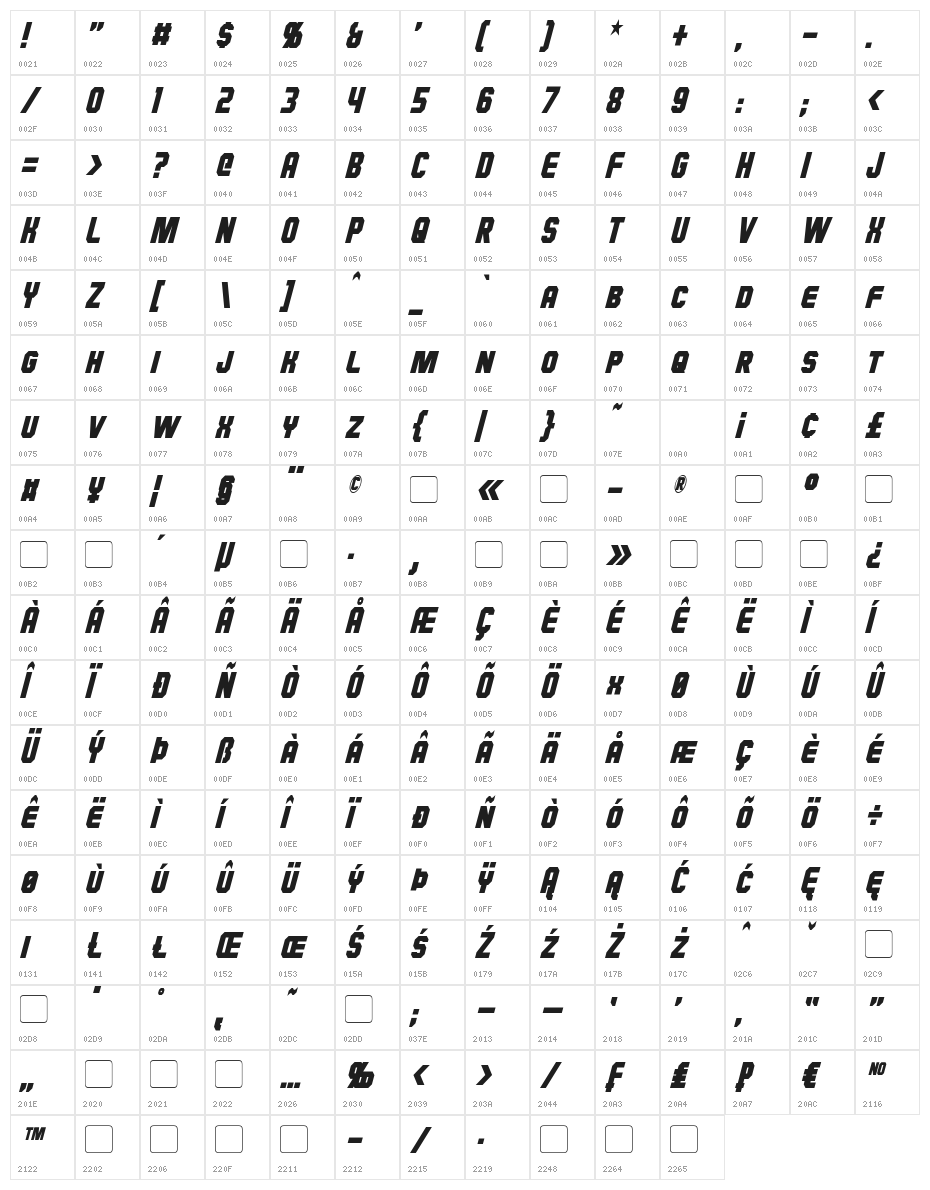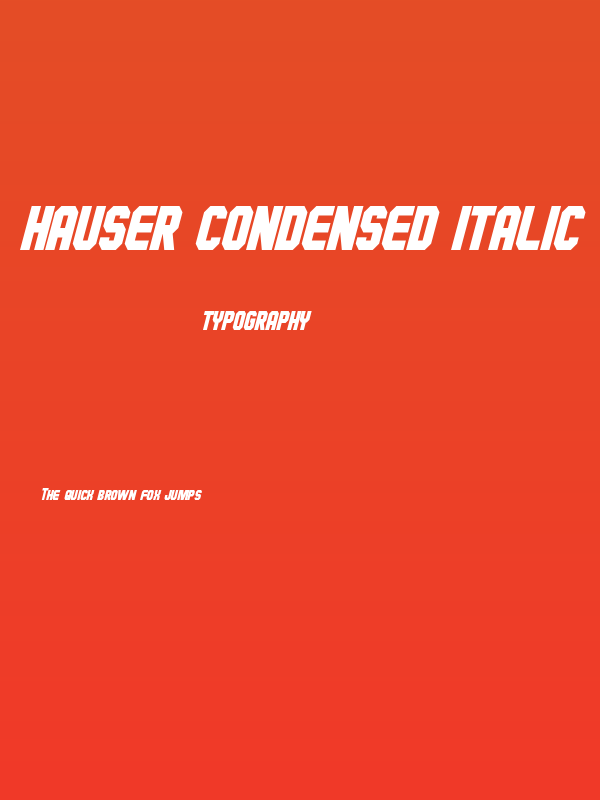
Hauser Condensed Italic Font
Hauser Condensed Italic Description
This font features a bold, italicized style with a condensed width, giving it a strong and dynamic appearance. The characters are sharply angled, creating a sense of movement and urgency. The uppercase and lowercase letters maintain a consistent style, with the lowercase slightly smaller but equally impactful. Numbers and special characters are designed to match the boldness and angularity of the alphabet, ensuring a cohesive look across all text. The font's condensed nature makes it suitable for space-saving applications while maintaining readability.
| Proposed Projects | Ideal for sports branding, dynamic posters, and modern advertising campaigns. |